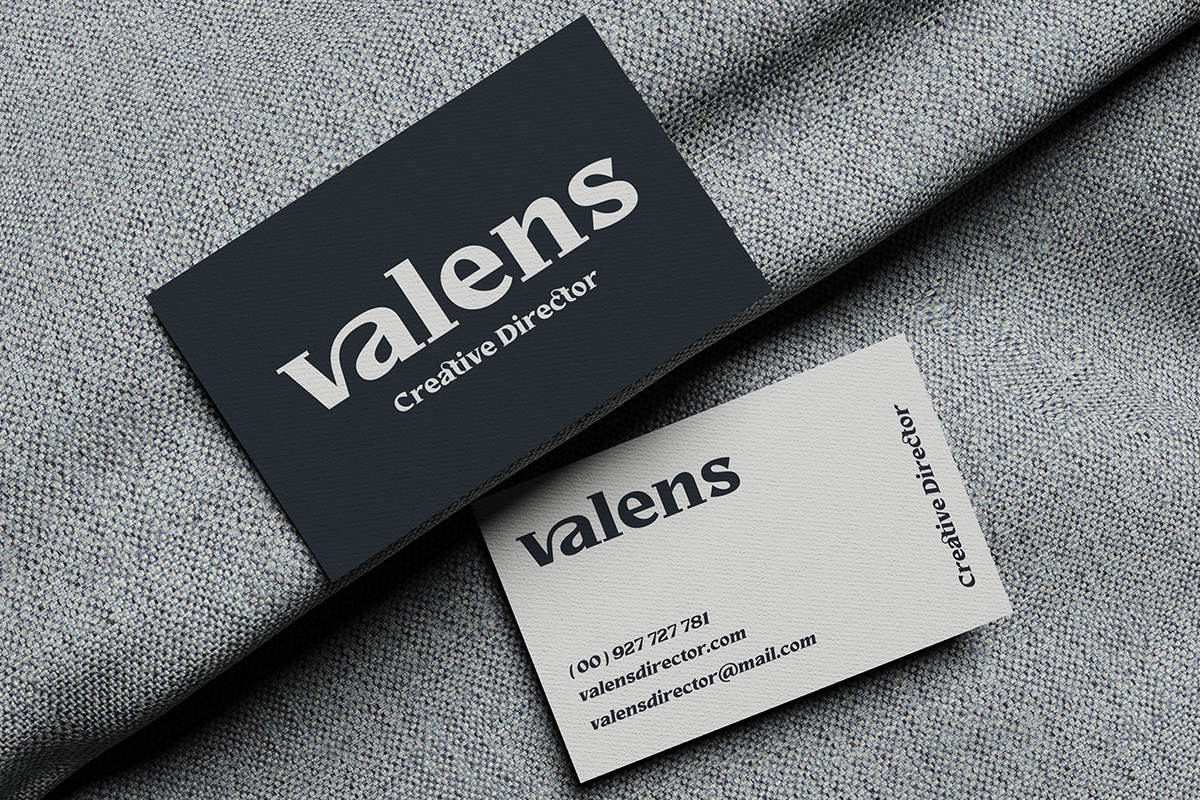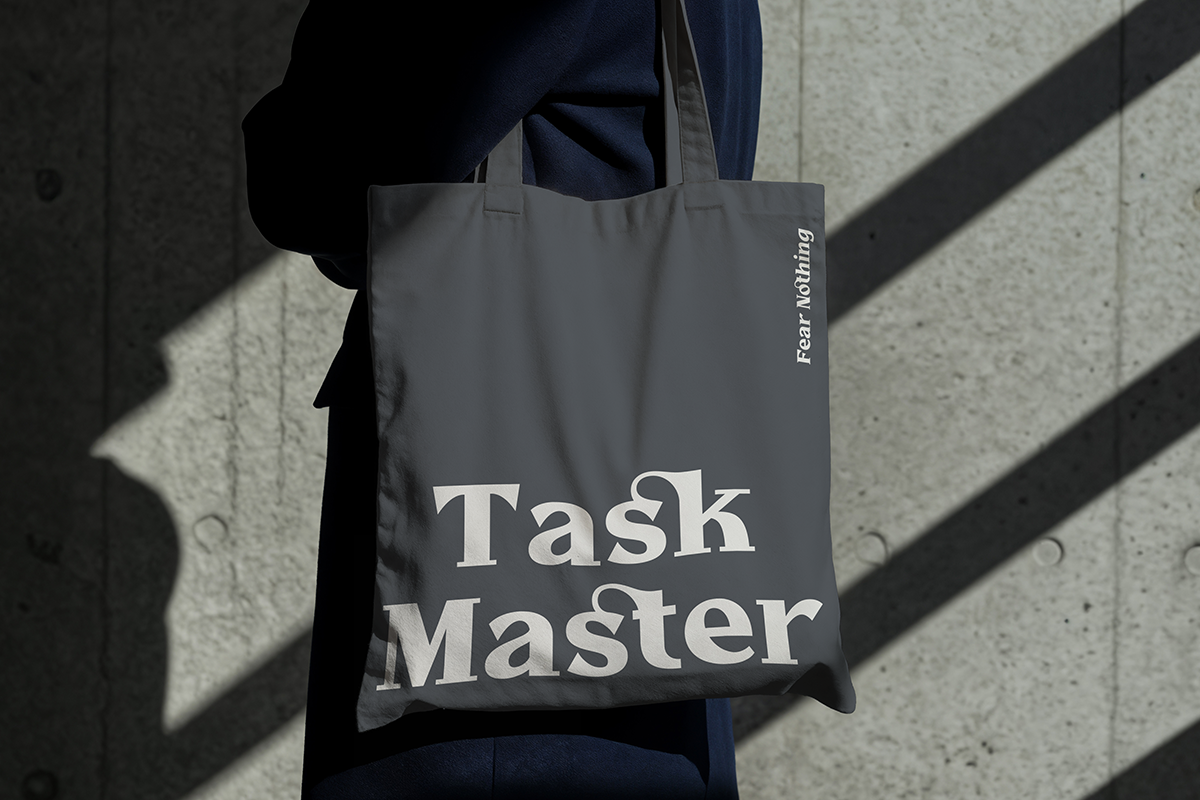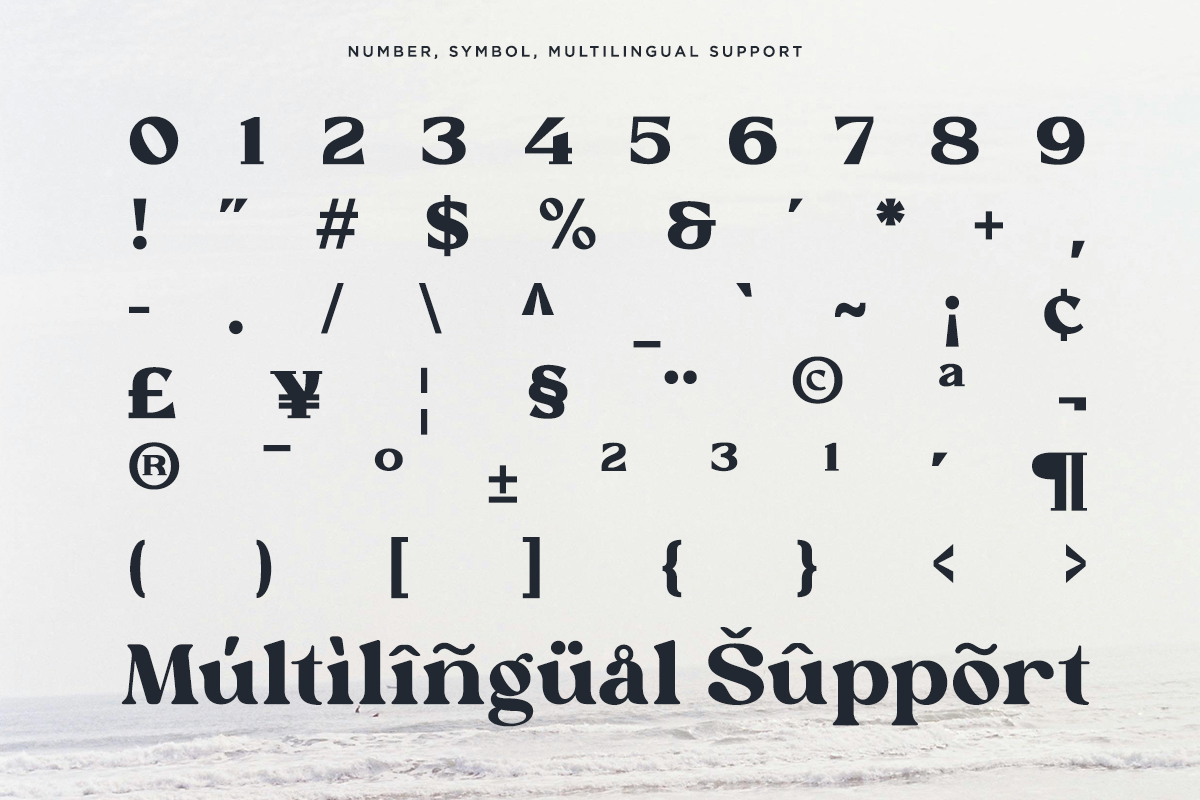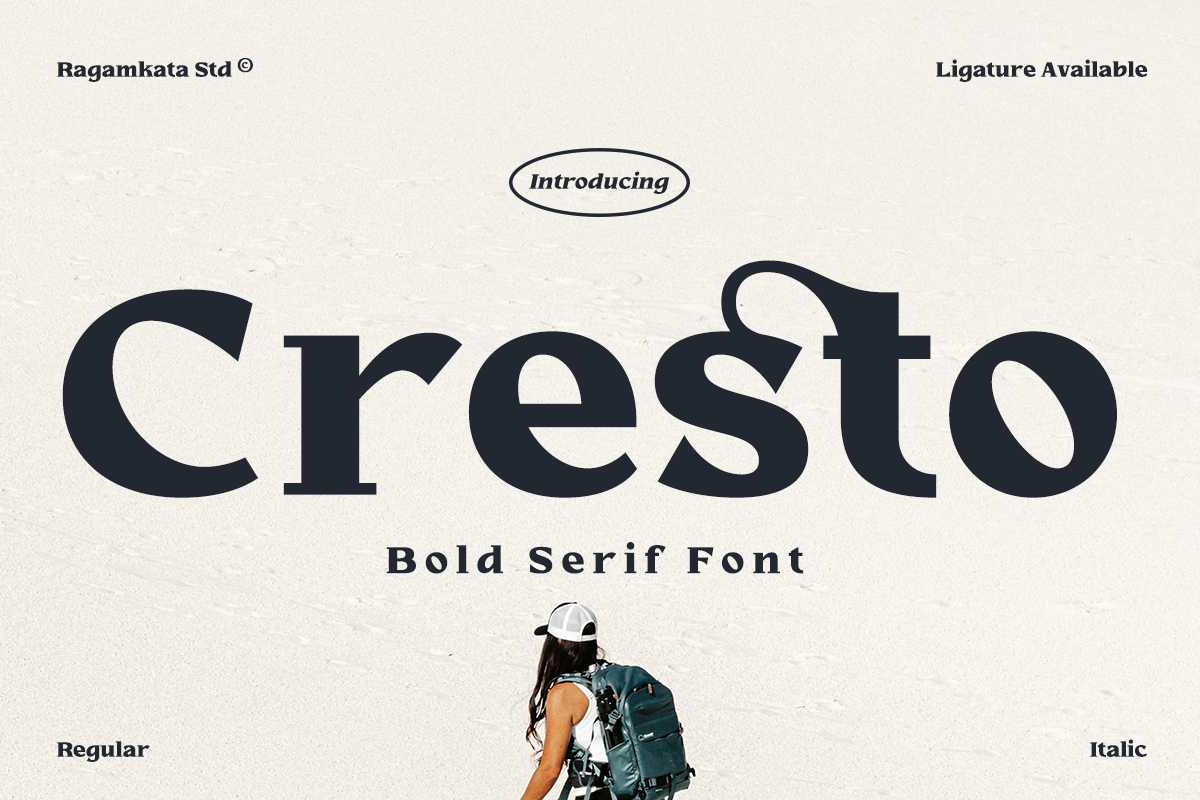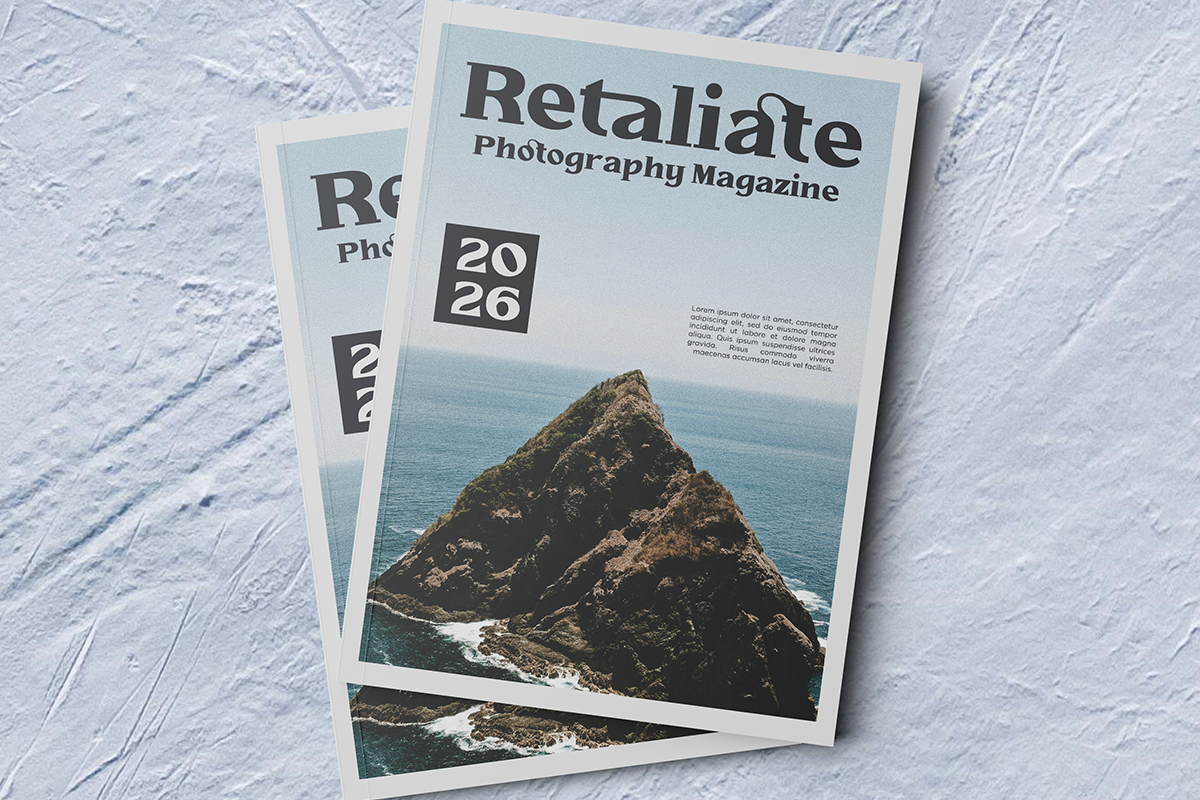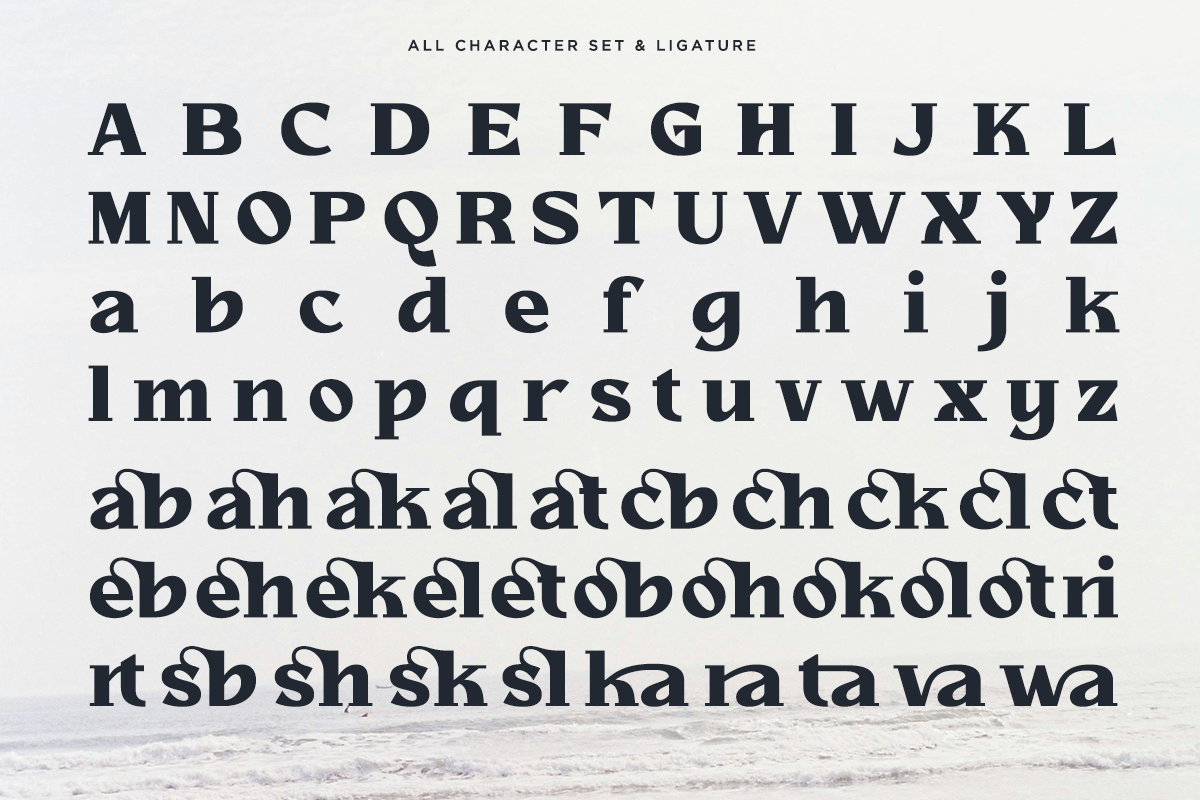
Cresto – Bold Serif Font
Cresto is a bold serif font designed to deliver strong visual impact with a refined, modern character. Featuring confident letterforms, smooth curves, and well-balanced proportions, Cresto strikes the perfect balance between classic serif structure and contemporary boldness. Its solid presence makes it ideal for headlines and display use, while remaining readable and versatile across different design needs.
This font is good for branding, logos, headlines, editorial design, magazine layouts, posters, advertising, website headers, social media graphics, packaging design, book covers, product labels, corporate branding, marketing materials, modern print design, etc.
- Stylish Ligature set
- Symbol, and number